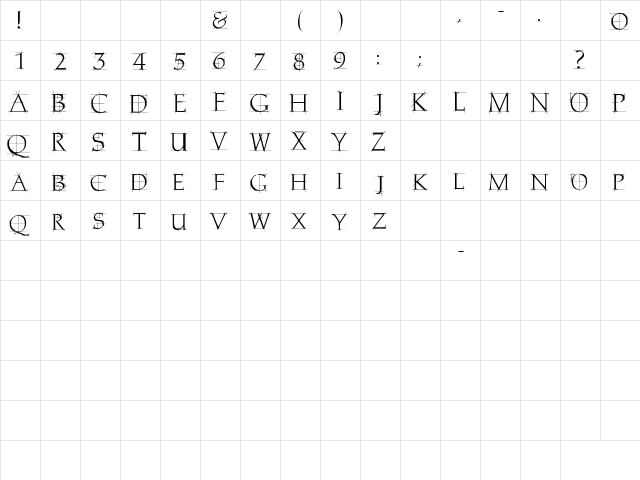
Crafted Regular
Design Context for Crafted Typeface
Crafted takes a measured approach to typography — its balanced proportions and neutral character make it a reliable workhorse for both digital and print work.
Pro Tip: Use Crafted in both headline and body roles to test its range before committing to a single application.